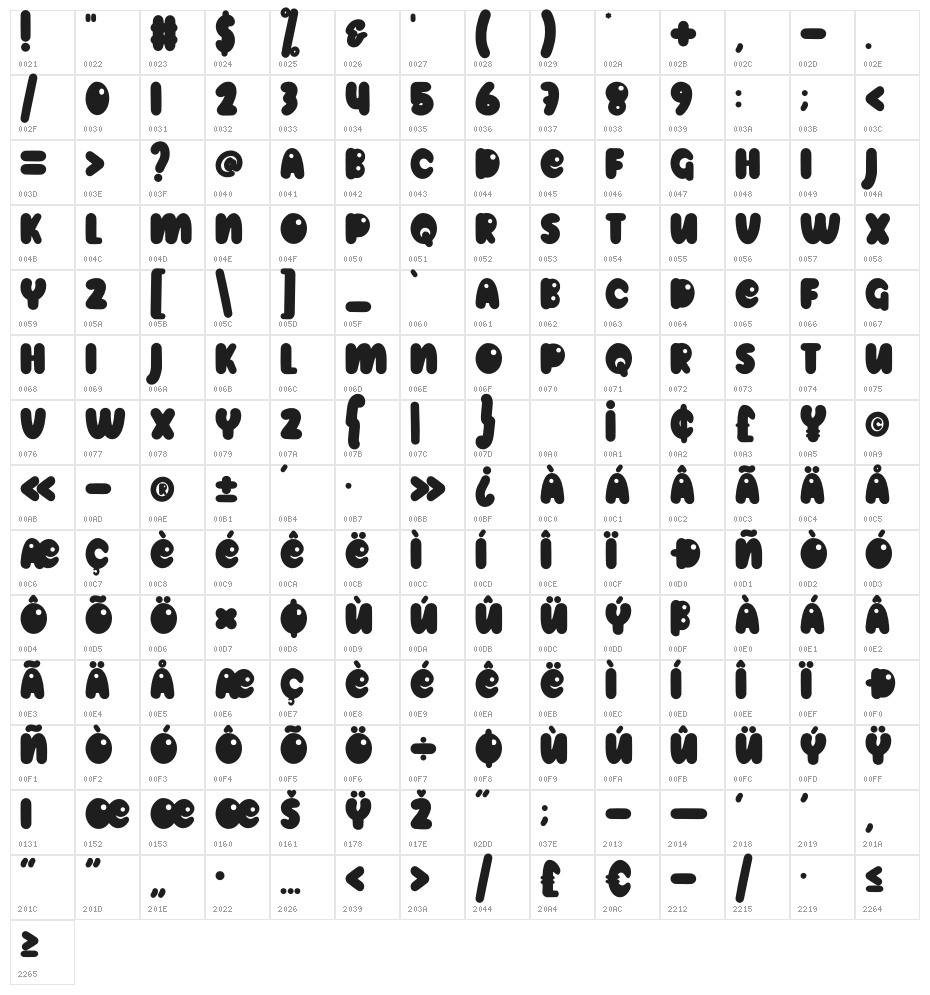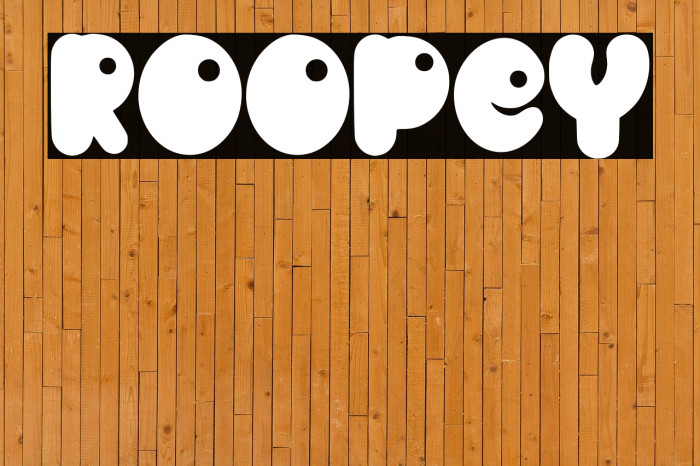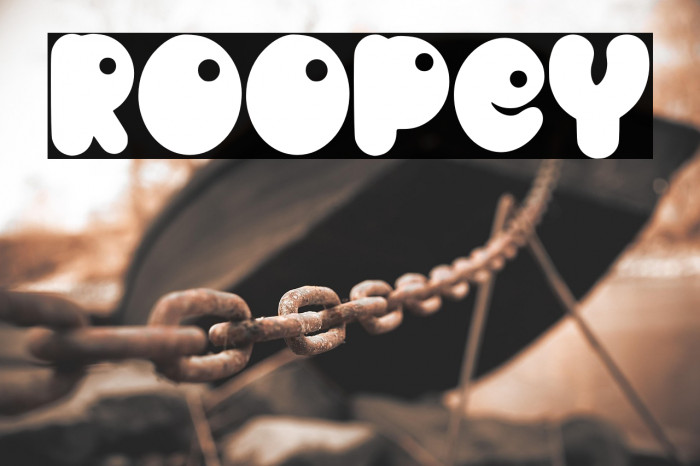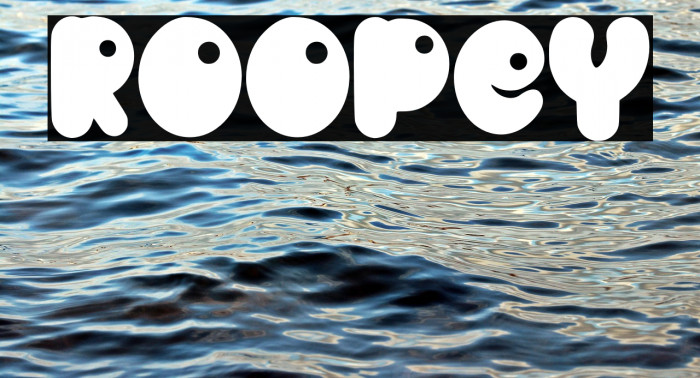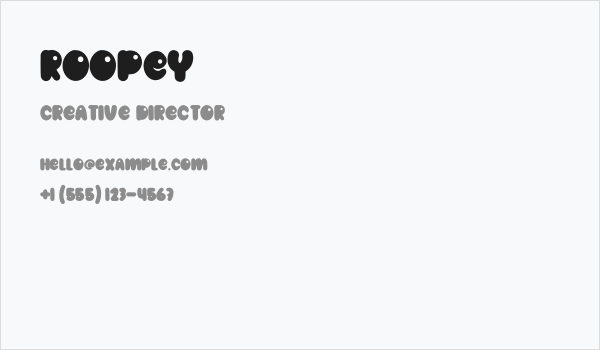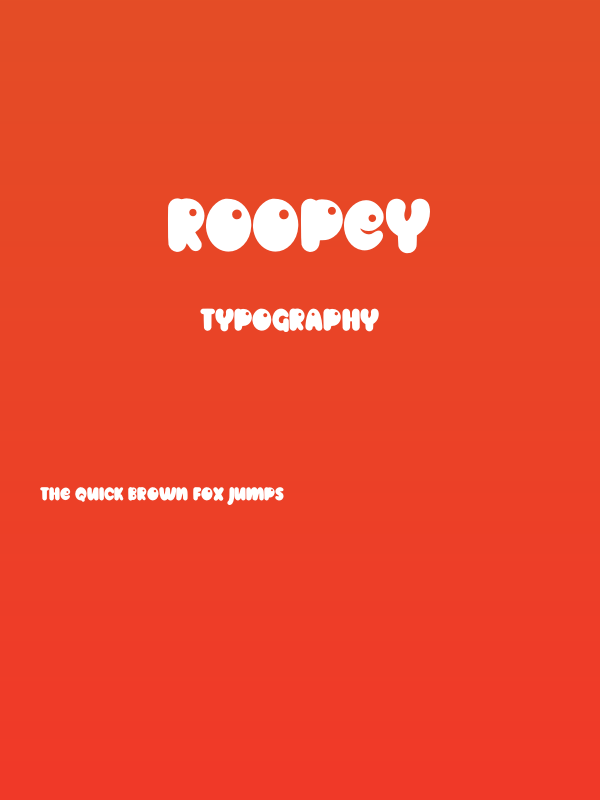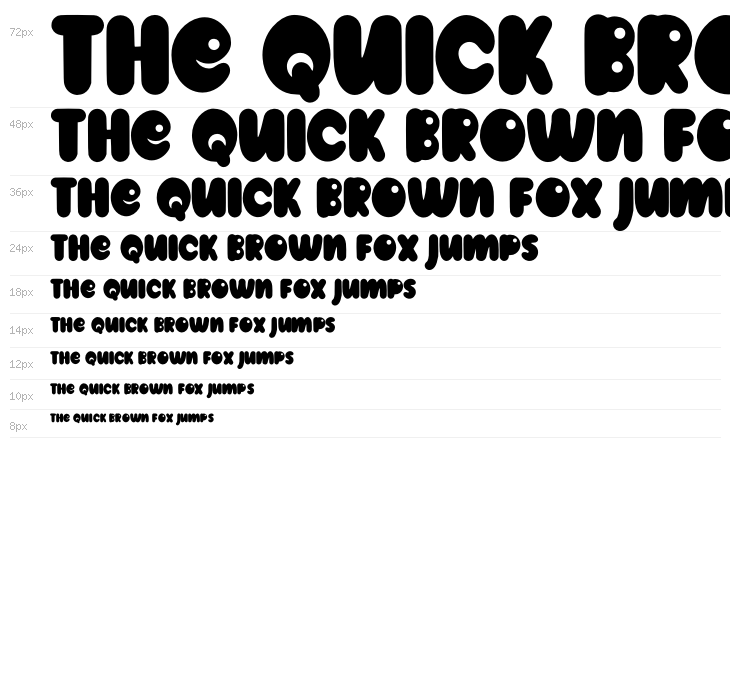
Roopey Font
Roopey Description
This playful and bold font features rounded, bubbly characters that convey a sense of fun and whimsy. The letters are thick and uniform, with a consistent stroke width that gives them a solid, impactful appearance. The rounded edges and lack of sharp angles contribute to a friendly and approachable feel. The font includes both uppercase and lowercase letters, numerals, and a variety of special characters, making it versatile for different design needs. Its unique style is eye-catching and memorable, perfect for projects that require a touch of creativity and personality.
| Overall Style | Playful, Fun |
| Proposed Projects | Ideal for children's books, playful branding, party invitations, and creative posters. |